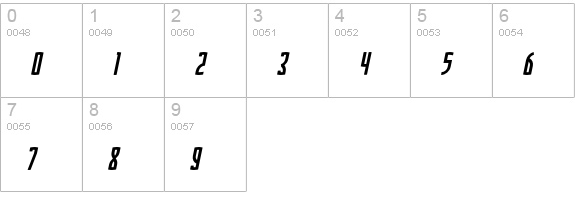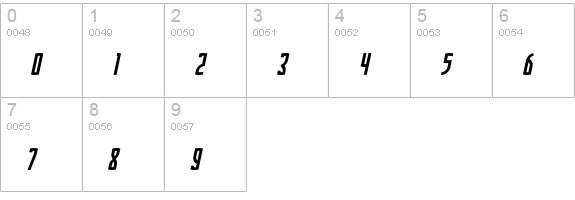
Komunique-BoldItalic Font Details
Komunique-BoldItalic is a stunning and versatile font that exudes elegance and sophistication. Its bold and italic design adds a touch of modernity to any project, making it perfect for a wide range of applications, from branding to editorial design. The sleek curves and sharp angles create a harmonious balance that captures attention and leaves a lasting impression. What makes Komunique-BoldItalic even more appealing is that it is available for free download at FontsMarket.com. This means that you can easily access this beautiful font and use it in your projects without any cost. Whether you're designing a website, creating a poster, or working on a logo, Komunique-BoldItalic will elevate your work and help you stand out from the crowd. Download it today and experience the power of this exquisite font for yourself.